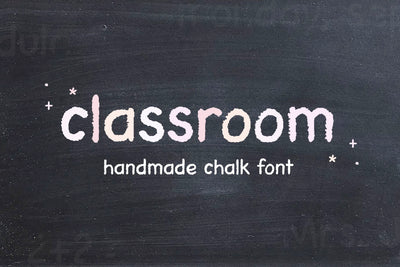
Classroom - Cute Chalk Font
Classroom is a cute handwritten font that was created to look like writing on a chalkboard!
This is a textured font. It is rough on the edges to give the look of chalk writing.
This font is perfect for teachers and back to school designs!